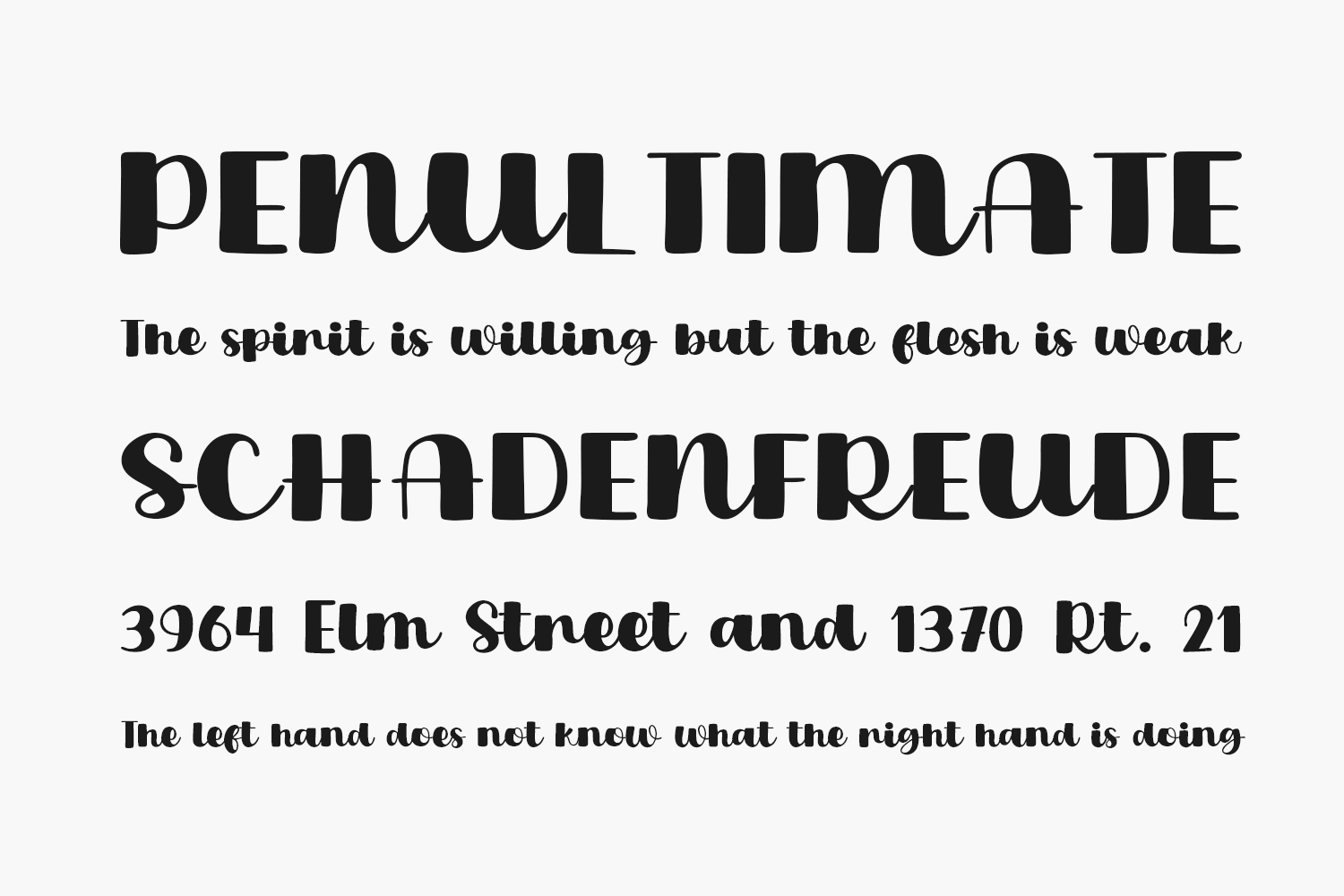
Mother Glow Free Font – Stylish Script for Elegant Design Projects
Mother Glow is a charming and expressive script font designed by Khurasan to bring elegance and warmth to your creative projects. With its smooth strokes, soft curves, and hand-drawn appearance, this free decorative typeface works perfectly for crafting romantic logos, greeting cards, social media quotes, wedding invitations, product packaging, and more. Available in TTF and OTF formats — ideal for designers seeking a stylish, readable handwriting style that instantly connects with audiences.
Why Choose Mother Glow?
- Elegant Handwriting Style: Combines natural flow with subtle detailing for a warm, personal touch perfect for lifestyle visuals.
- Ideal for Invitations & Branding: Perfect for formal stationery sets, brand kits, or fashion labels needing a soft tone.
Where to Use Mother Glow?
Mother Glow shines across a variety of creative applications:
- Logos & Brand Identities: Adds charm to brand identities for lifestyle blogs, handmade studios, or boutique shops needing a warm tone.
- Social Media Quotes: Creates bold text overlays for Instagram Stories, Pinterest pins, TikTok videos, and YouTube banners with a refined appeal.
- Wedding Invitations: Brings romance to formal stationery sets, envelopes, and bridal name typography with a human touch.
- Packaging Design: Enhances product tags on candles, perfumes, or artisanal goods requiring a premium look.
- Editorial Headers: Stands out in blog headers, magazine covers, and advertising campaigns with a vintage-inspired handwriting feel.
Design Tips with Mother Glow
- Glyphs: Uppercase (A-Z), lowercase (a-z), numerals, punctuation, basic Latin characters.